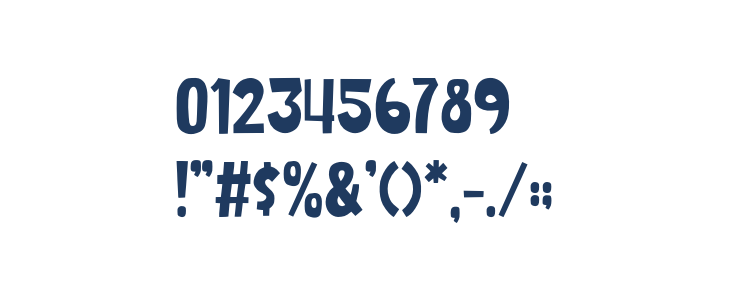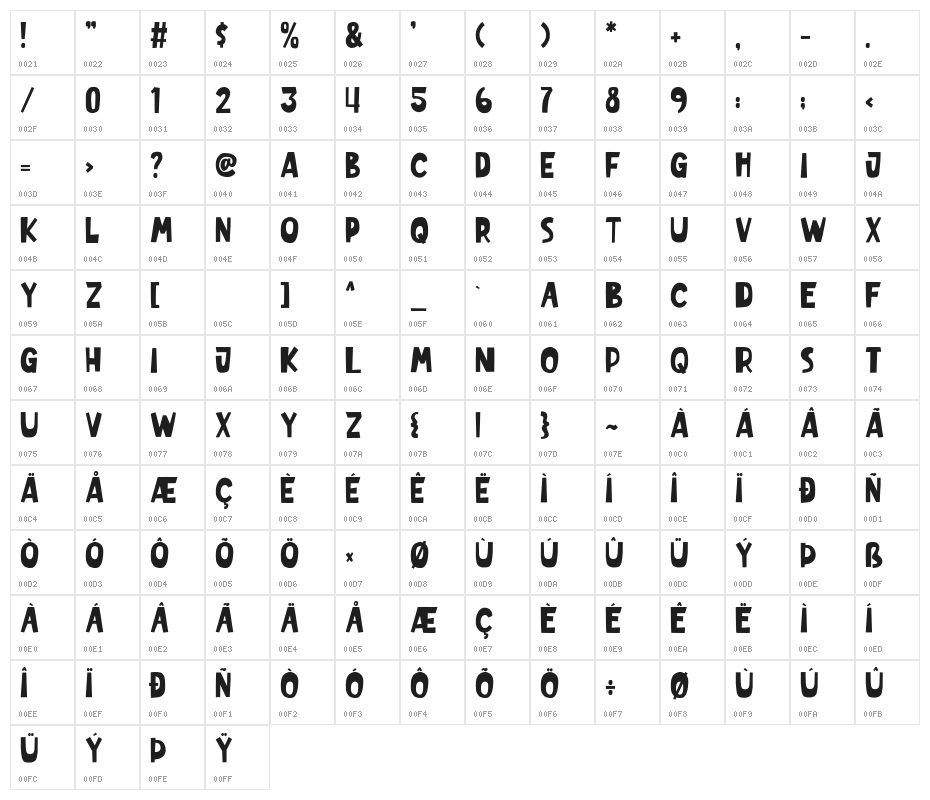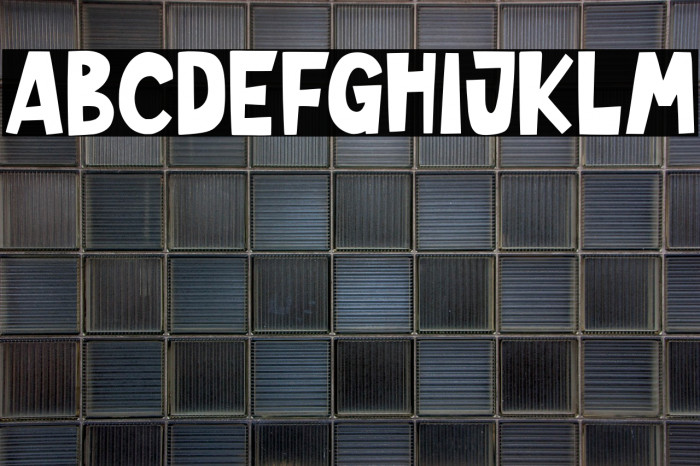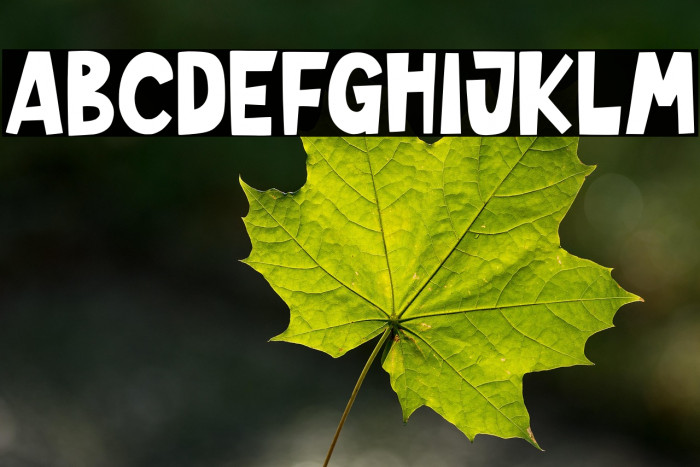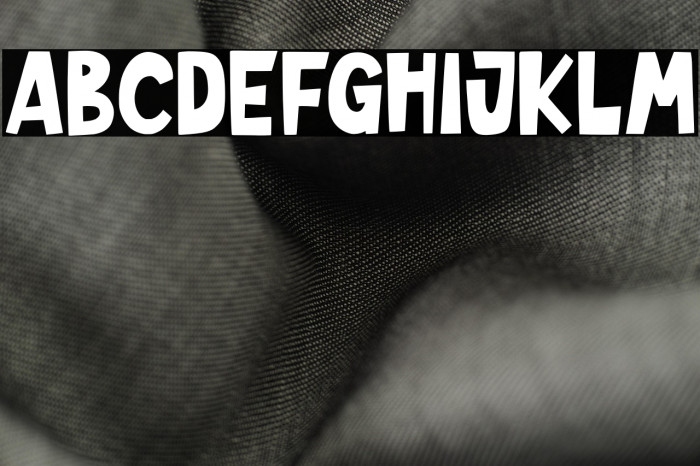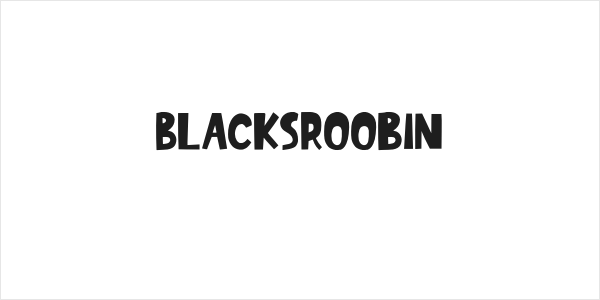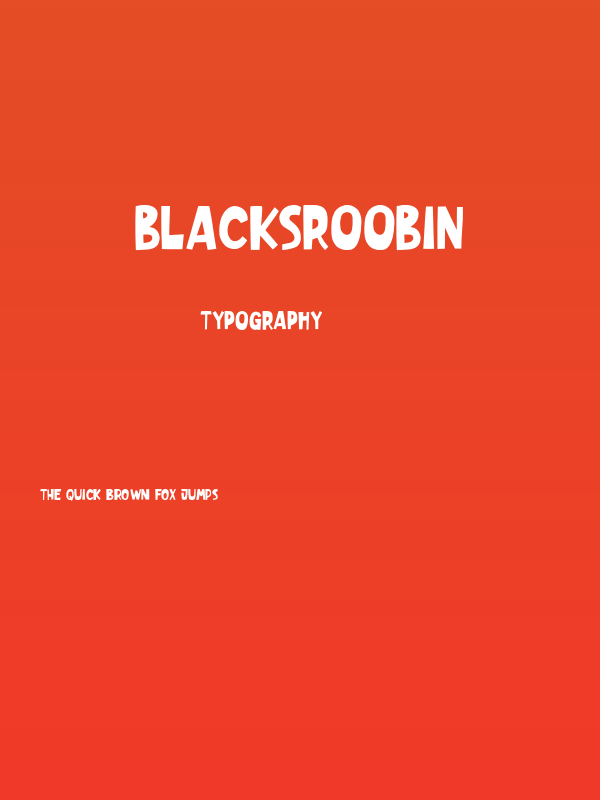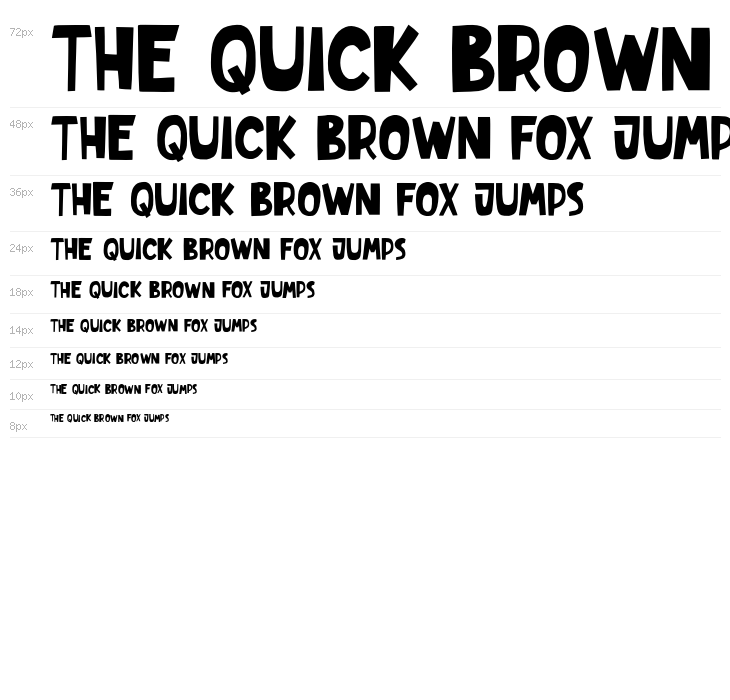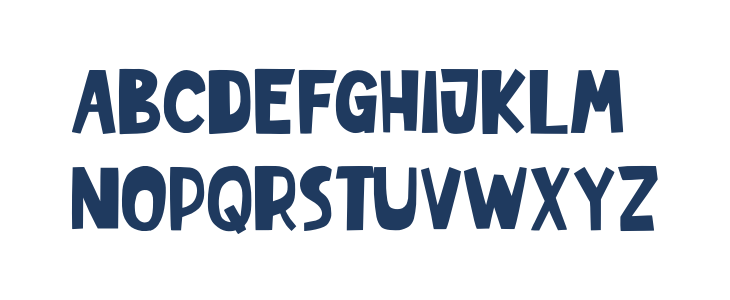
BlacksRoobin Font
BlacksRoobin Description
This font features bold, playful characters with a hand-drawn aesthetic. The letters are thick and slightly irregular, giving them a whimsical and dynamic appearance. The uppercase and lowercase letters maintain a consistent style, with rounded edges and a slightly condensed form. Numbers and special characters follow the same design, ensuring a cohesive look across all text elements. The font's boldness and unique style make it stand out, ideal for projects that require a fun and engaging visual impact.
| Width | Condensed |
| Overall Style | Playful, Hand-drawn |
| Proposed Projects | Ideal for children's books, playful branding, posters, and creative invitations. |